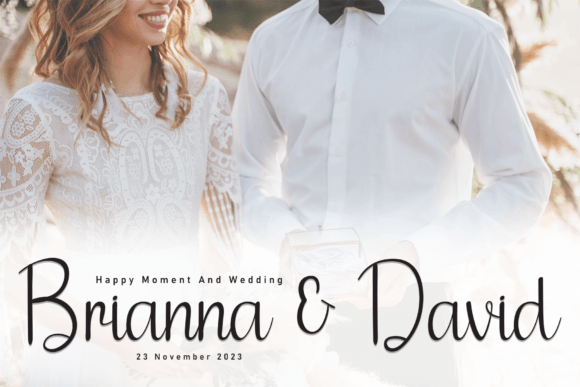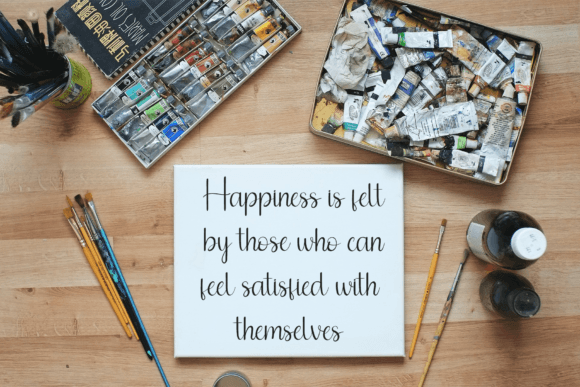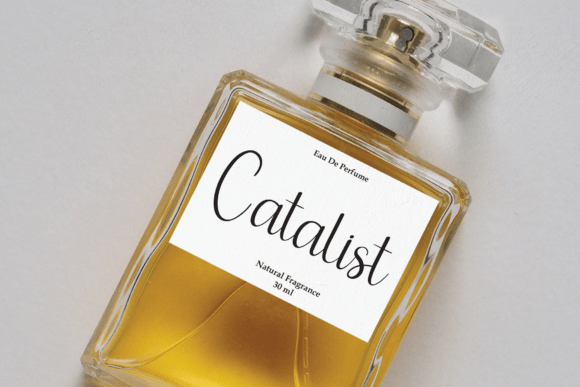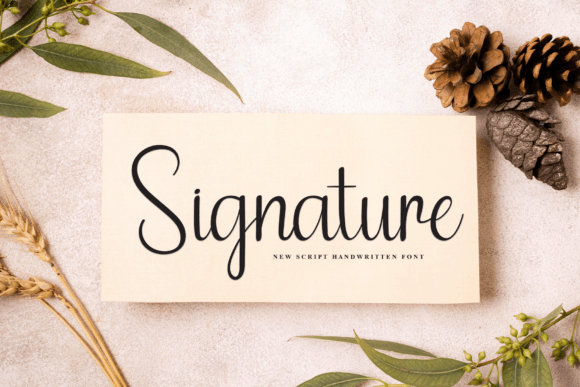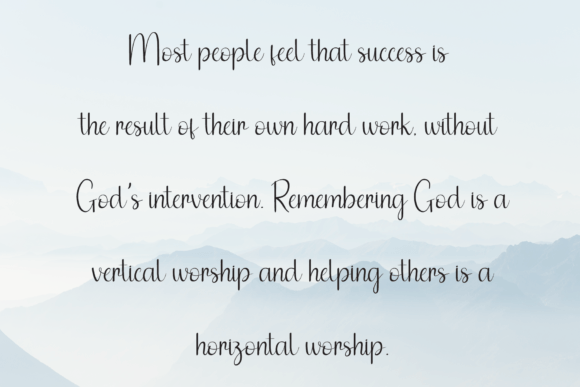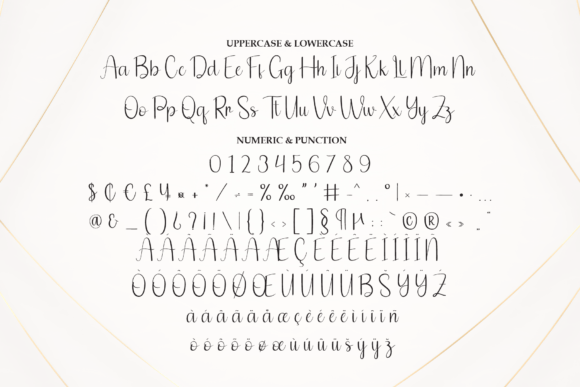
Introducing Animate Font: Add a Sweet and Friendly Touch to Your Designs
Are you looking for a font that can add a playful and charming touch to your designs? Look no further than Animate Font! This sweet and friendly handwritten font is perfect for creating beautiful wedding invitations, cards, and other designs that require a fun and stylish element. In this article, we’ll explore the features and benefits of Animate Font, and show you how to make the most of this versatile font.
What is Animate Font?
Animate Font is a modern handwritten font that is designed to bring a touch of personality and whimsy to your designs. With its stylish and versatile lettering, this font is ideal for a wide range of applications, from wedding invitations and cards to posters, flyers, and more. Whether you’re a designer, crafter, or DIY enthusiast, Animate Font is a great choice for adding a unique and eye-catching element to your projects.
Key Features of Animate Font
- Sweet and Friendly Style: Animate Font has a sweet and friendly style that is perfect for creating designs that require a playful touch.
- Handwritten Lettering: This font features beautiful handwritten lettering that gives your designs a personal and unique feel.
- Versatile and Stylish: Animate Font is highly versatile and can be used for a wide range of applications, from formal to informal designs.
- Easily Readable: Despite its playful style, Animate Font is easily readable, making it perfect for body text and headlines.
Use Cases for Animate Font
Animate Font is perfect for a wide range of design applications, including:
- Wedding Invitations: Add a touch of romance and whimsy to your wedding invitations with Animate Font.
- Cards and Stationery: Create beautiful and unique cards and stationery with Animate Font.
- Posters and Flyers: Use Animate Font to add a playful touch to your posters and flyers.
- Social Media Graphics: Add a personal touch to your social media graphics with Animate Font.
Tips for Using Animate Font
Here are some tips for getting the most out of Animate Font:
- Use it for Headlines and Titles: Animate Font is perfect for headlines and titles, where its playful style can really shine.
- Pair it with Other Fonts: Experiment with pairing Animate Font with other fonts to create a unique and eye-catching combination.
- Use it for Body Text: Despite its playful style, Animate Font is easily readable, making it suitable for body text.
- Experiment with Colors and Textures: Add an extra layer of interest to your designs by experimenting with different colors and textures.
Animate Font is a sweet and friendly handwritten font that is perfect for adding a playful touch to your designs. With its stylish and versatile lettering, this font is ideal for a wide range of applications, from wedding invitations and cards to posters, flyers, and more. Whether you’re a designer, crafter, or DIY enthusiast, Animate Font is a great choice for creating unique and eye-catching designs. So why not give it a try and see how it can elevate your designs?